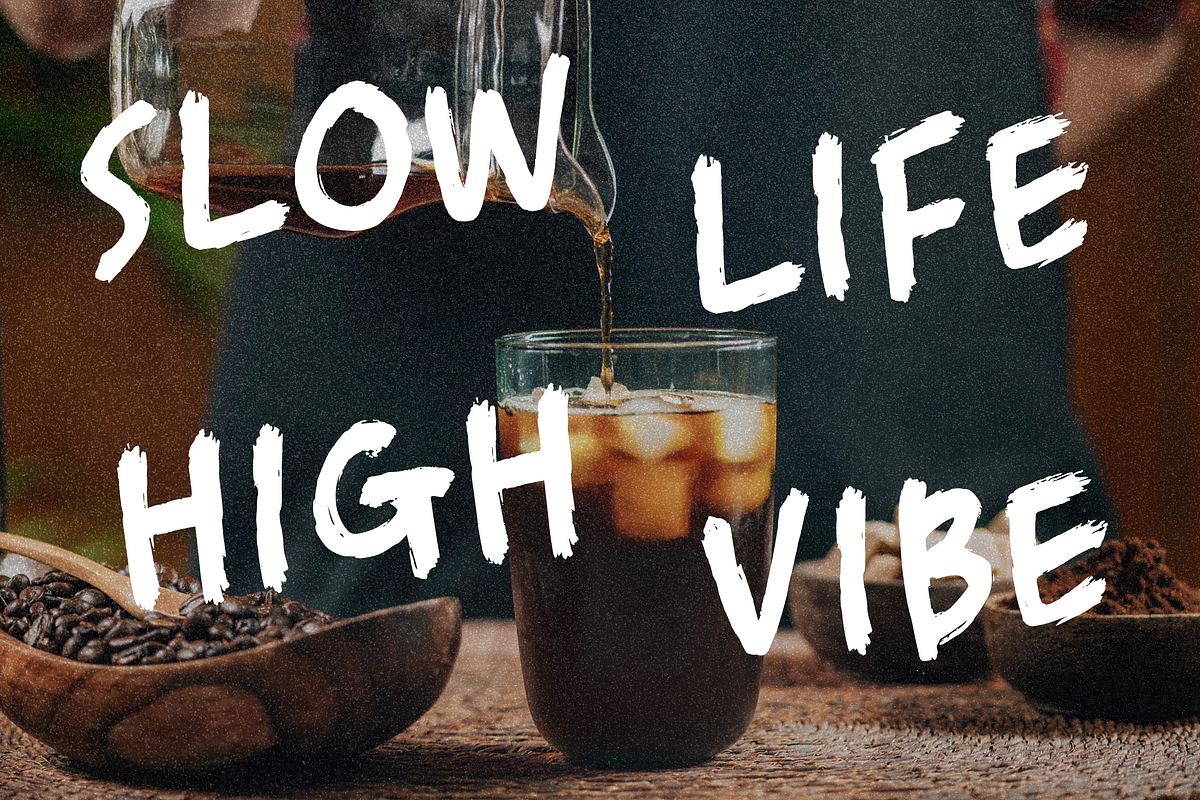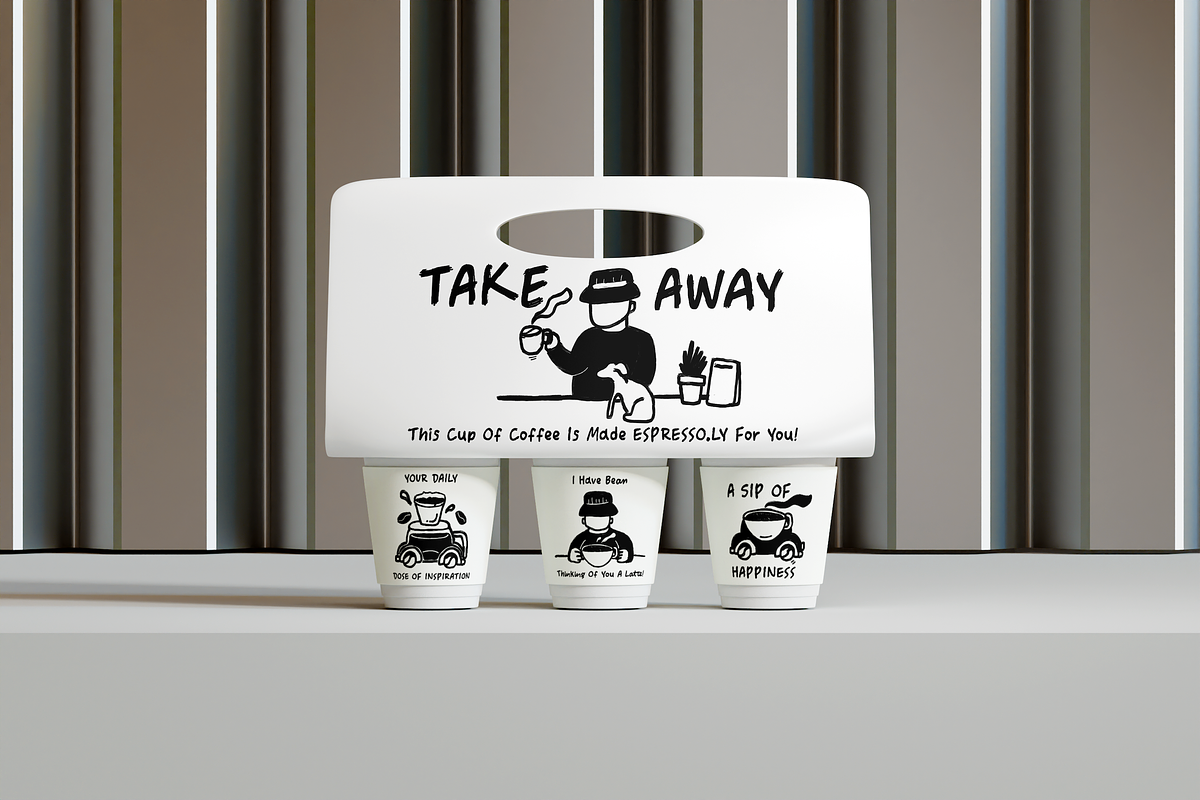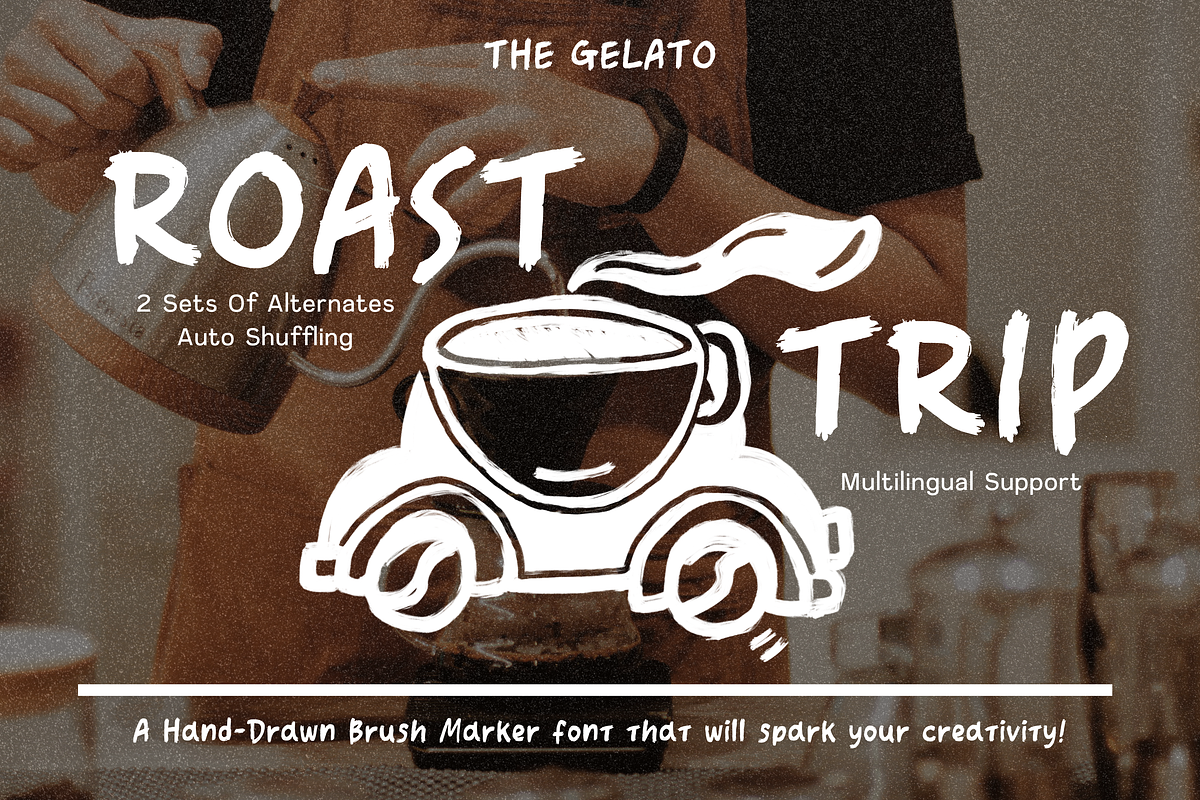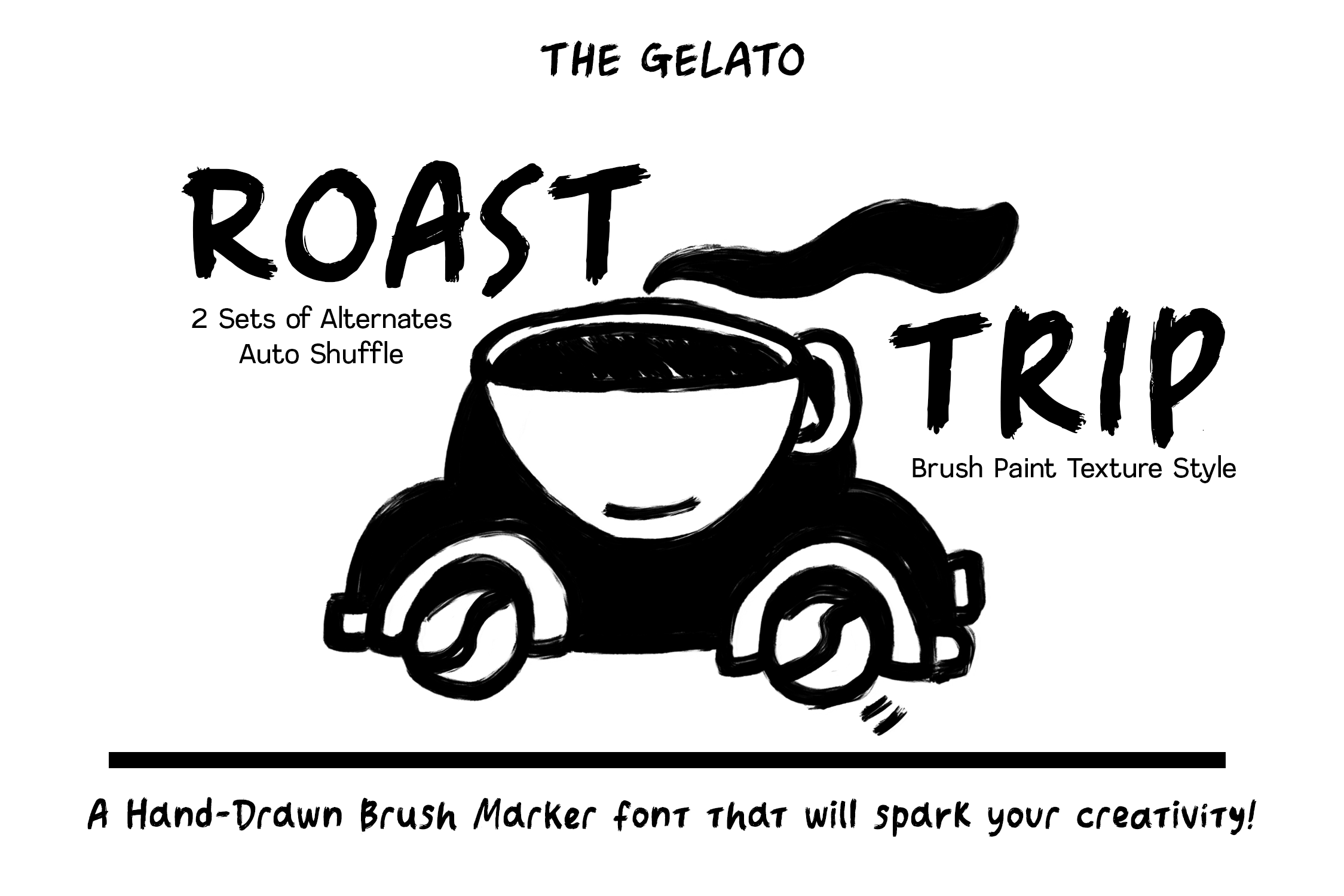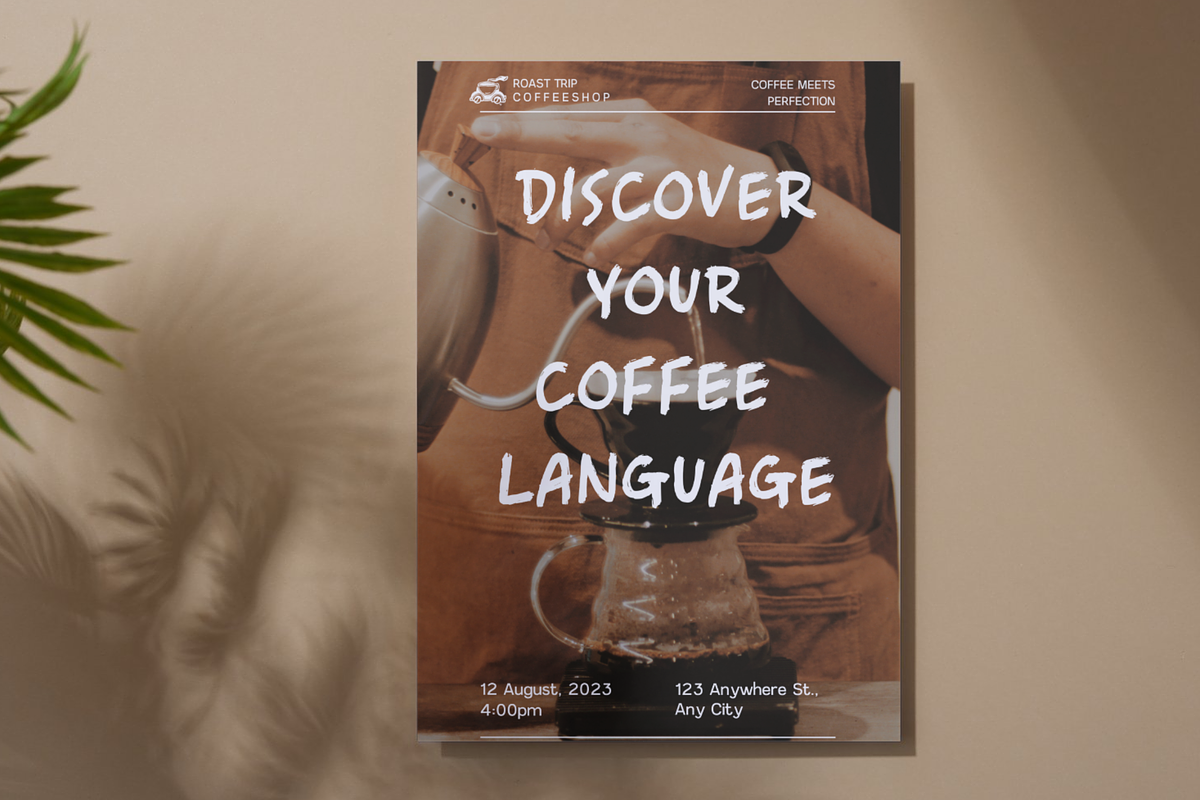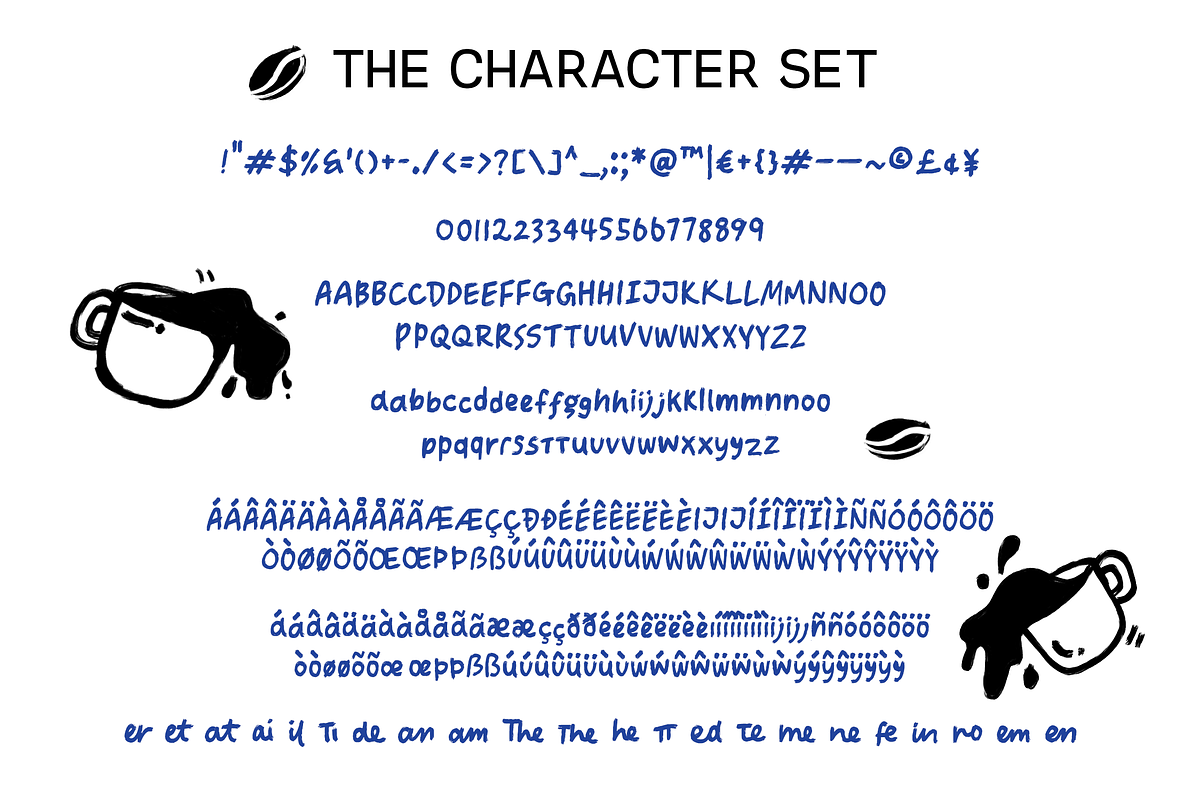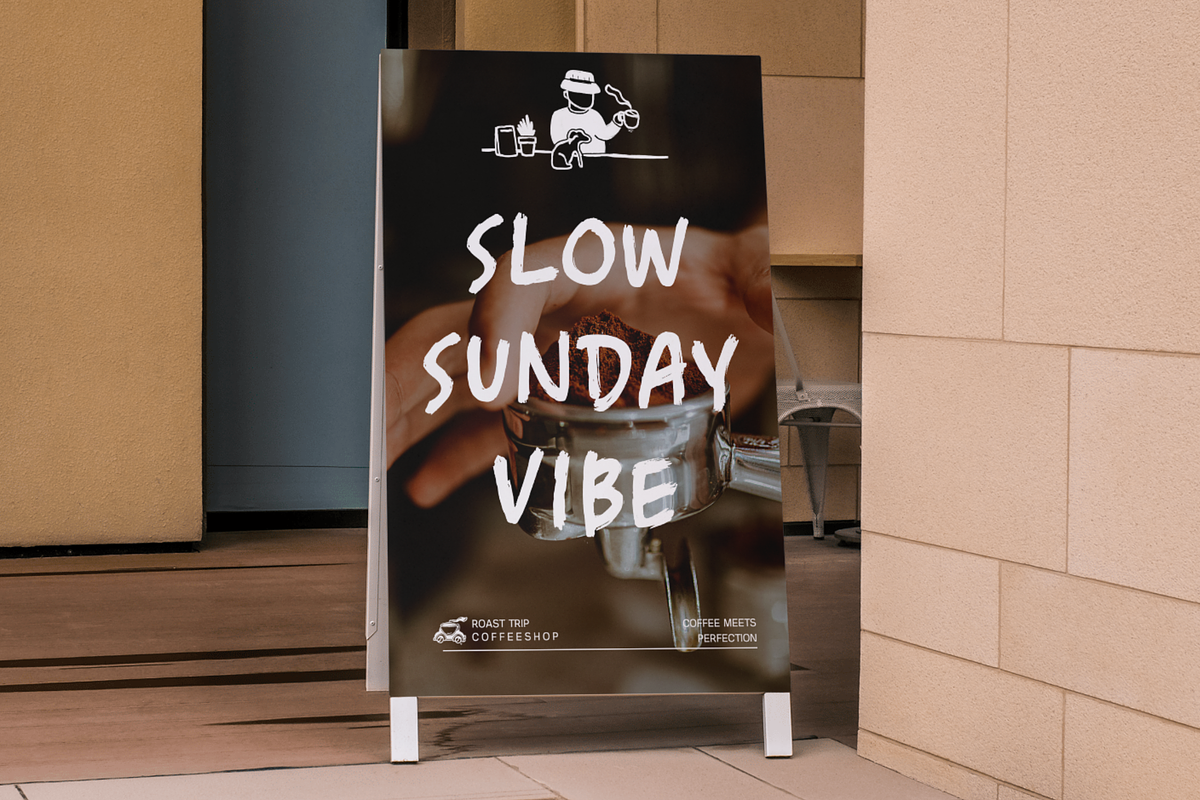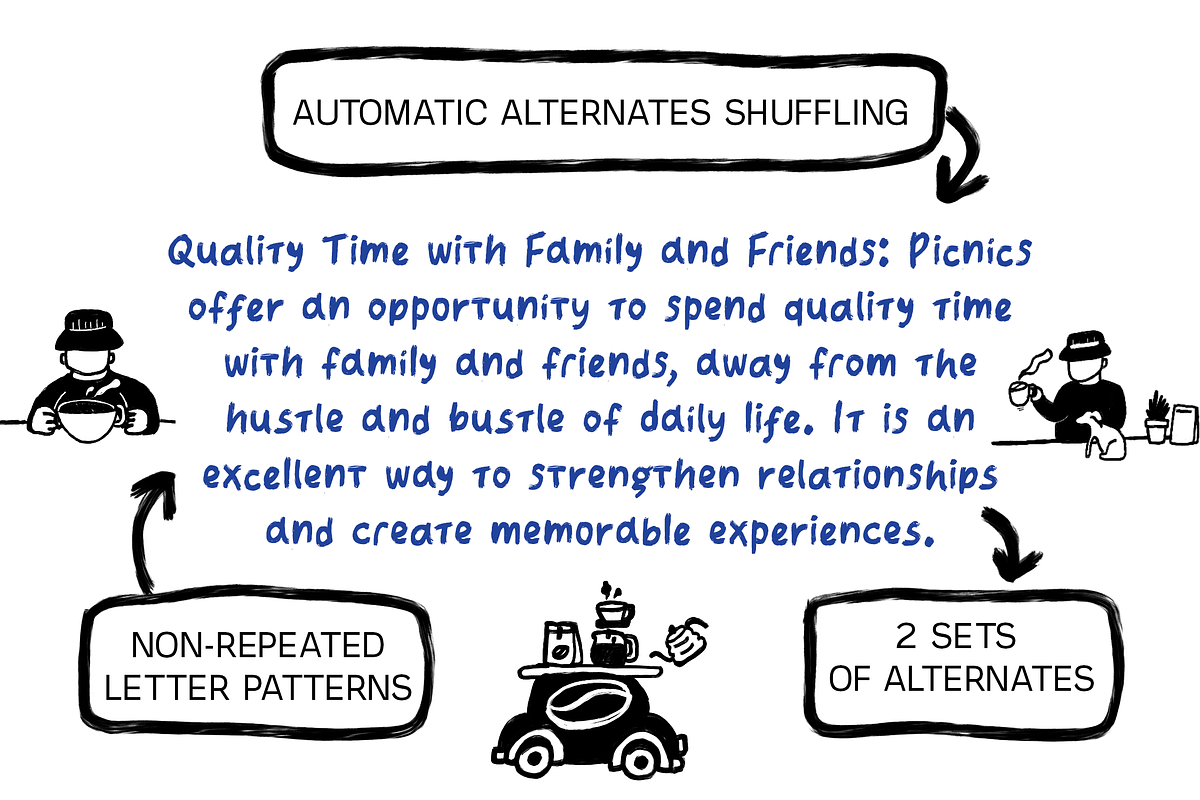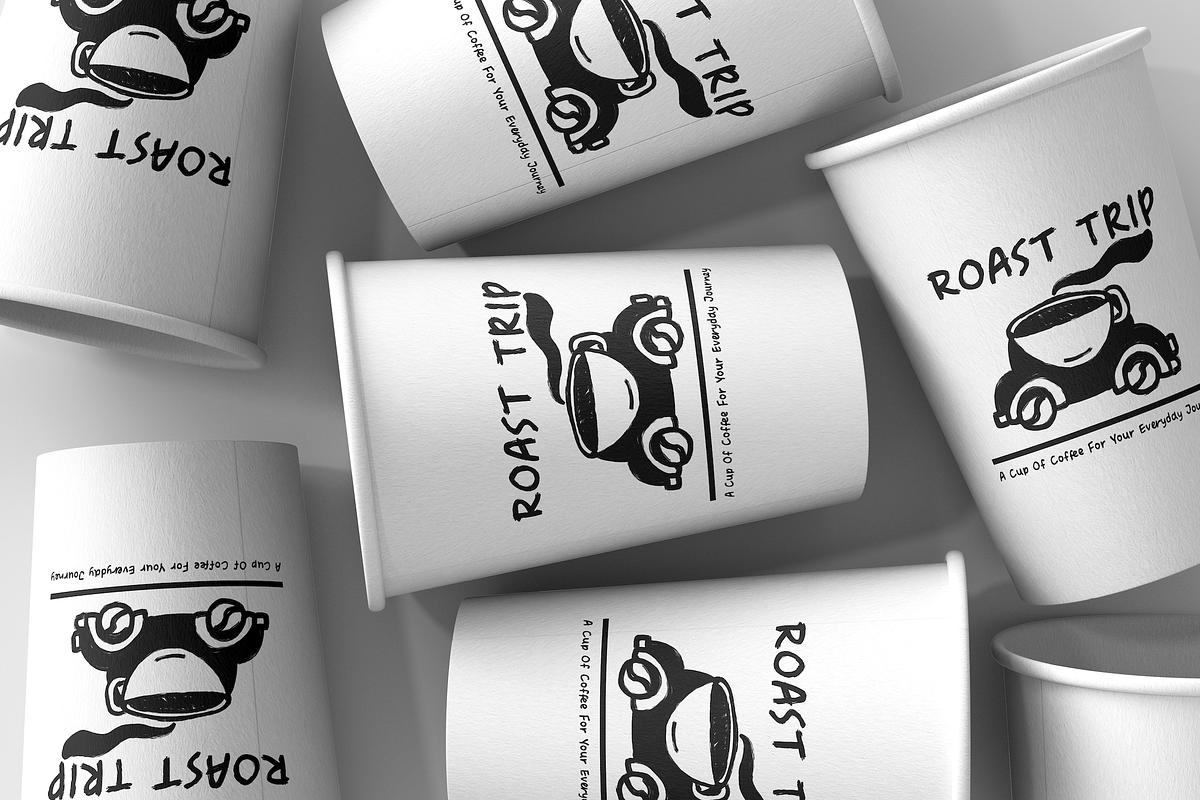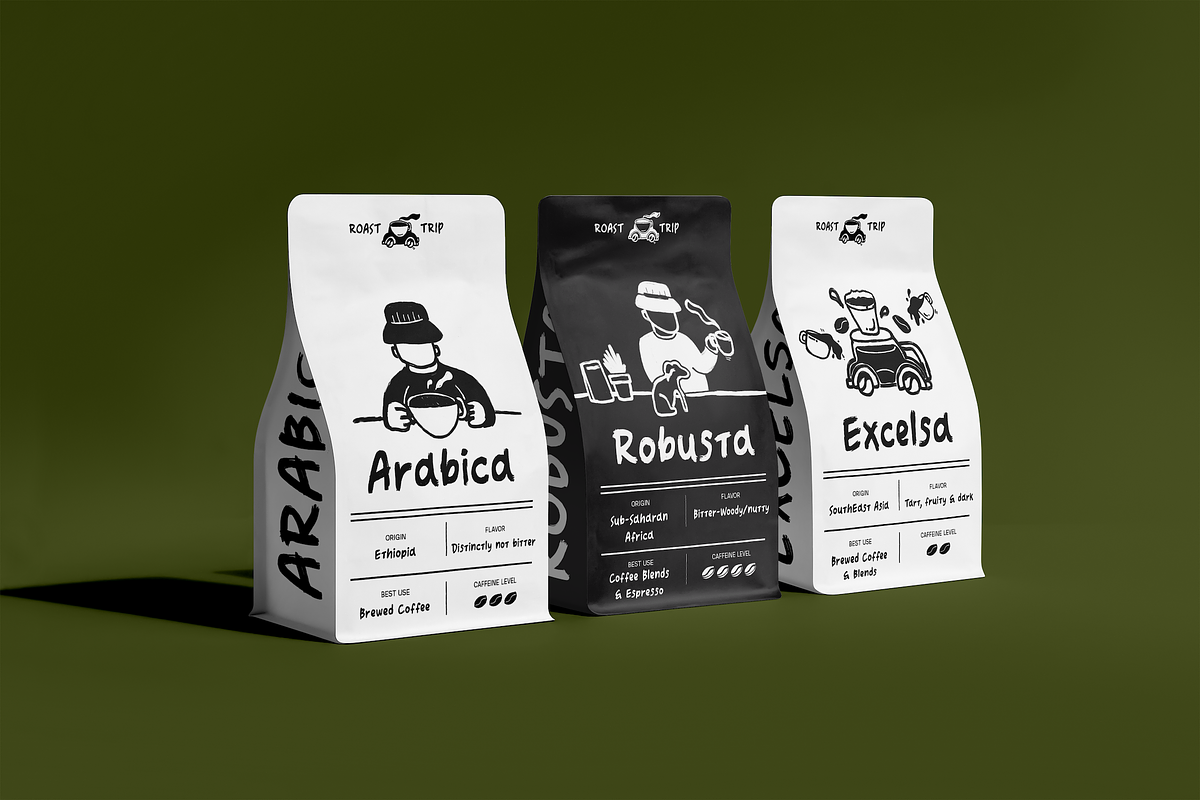
Roast Trip Handwritten Brush Font
Introducing "Roast Trip" – a hand-drawn, handwritten font that evokes the rich textures and cozy vibe. With its brush paint style, Roast Trip brings a unique blend of rustic charm and artistic flair to your designs.
Perfectly imperfect, this font is meticulously crafted to add character and authenticity to branding projects for coffee shops, cafes, and beyond. Its multilingual support ensures your message can reach a global audience seamlessly. What sets Roast Trip apart is its innovative OpenType feature, offering 2 alternates that shuffle automatically, providing endless possibilities for creative expression. The ligatures are on-demand, you can apply it on your preference.
Whether you're designing menus, signage, packaging, or promotional materials, Roast Trip is your go-to choice for capturing the essence of artisanal craftsmanship and creating a memorable brand identity. Embrace the hand-drawn charm of Roast Trip and elevate your next project with its inviting and distinctive style.
OpenType Feature and Access to Alternates
Simply enable Contextual Alternates, and alternates & ligatures will be generated when available (the preview image provides a complete list of ligatures). The Glyphs panel also provides access to character set. Additionally, because the font is PUA encoded, all letters can be pasted into incompatible programs like Canva from Font Book (Mac) or Character Map (Windows).